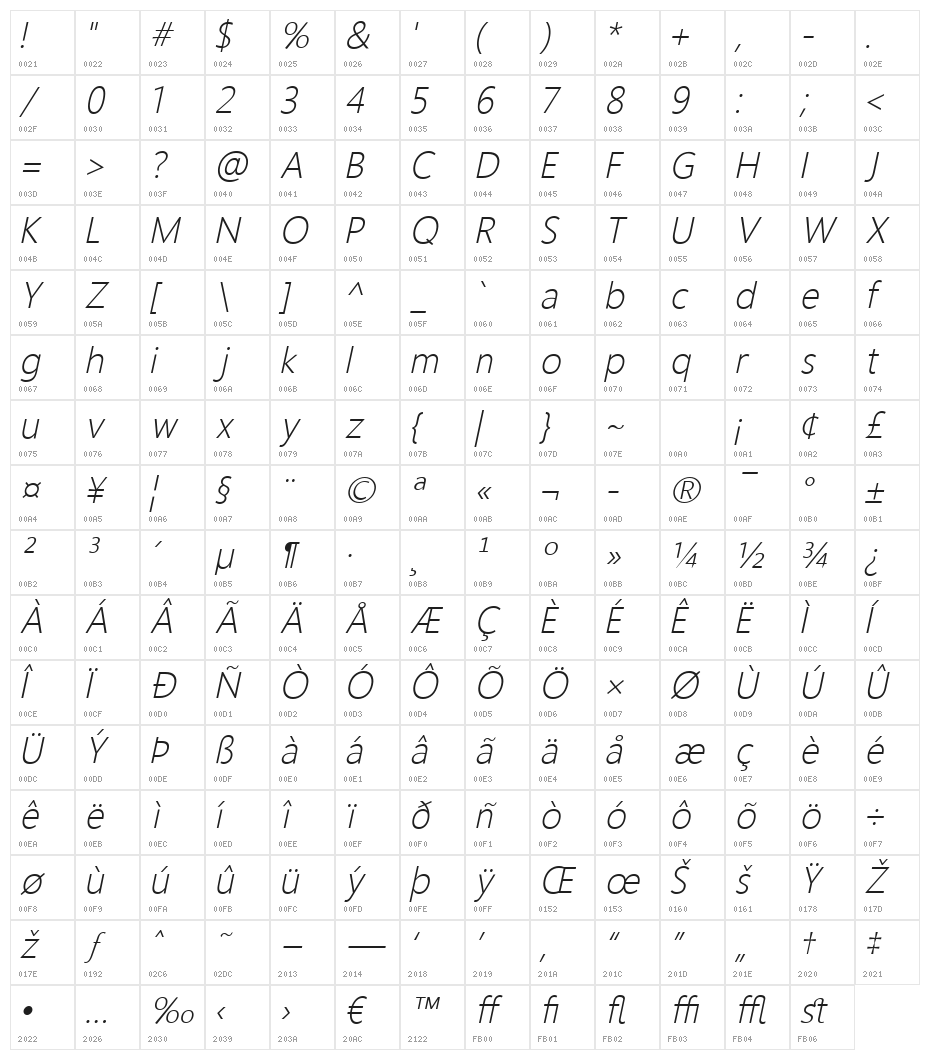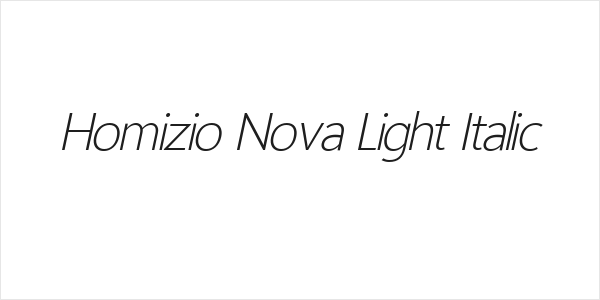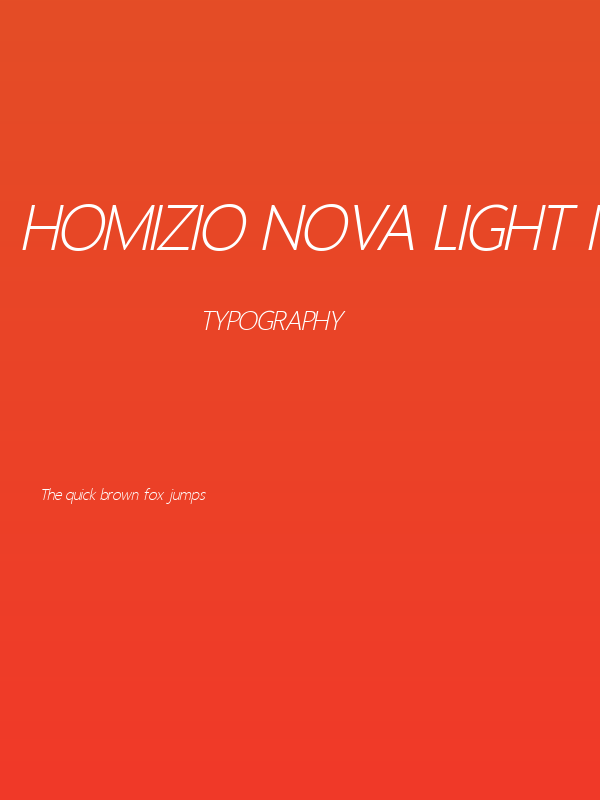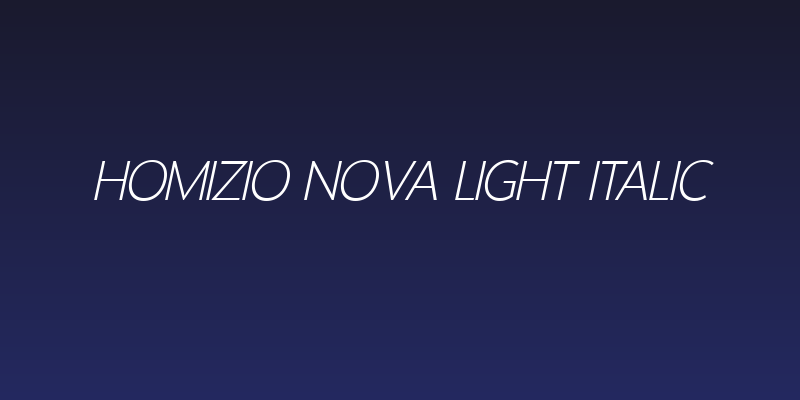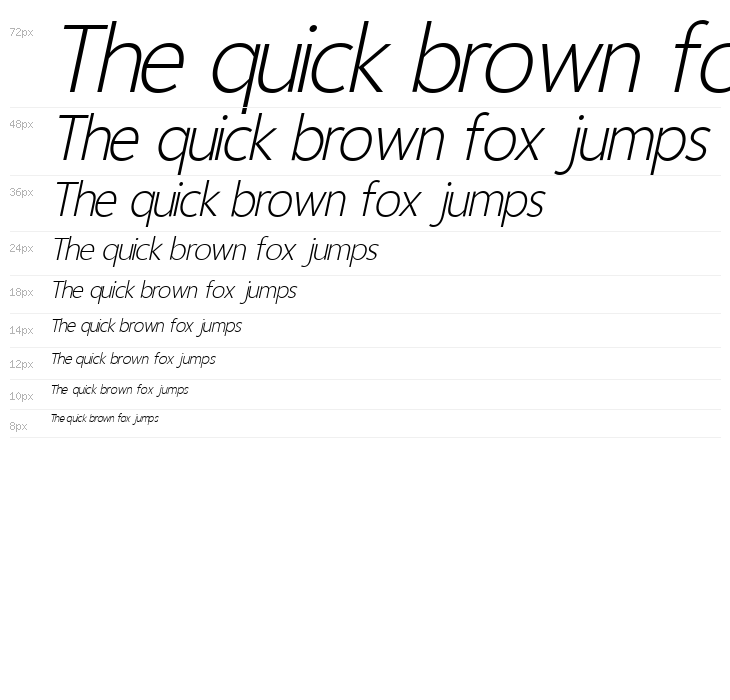
Homizio Nova Light Italic Font
Homizio Nova Light Italic Description
This font features a sleek and modern design with a light weight and italic style. The characters are elegantly slanted, giving a sense of motion and fluidity. The strokes are thin and consistent, providing a clean and sophisticated appearance. The overall design is minimalistic, making it suitable for contemporary projects. The uppercase and lowercase letters maintain a uniform style, while the numerals and special characters are clear and easily readable. The font's simplicity and elegance make it versatile for various design applications.
This is Homizio Nova, a sans-serif font designed by Alvaro Thomaz.
| Proposed Projects | Ideal for modern branding, editorial design, digital content, and minimalist projects. |